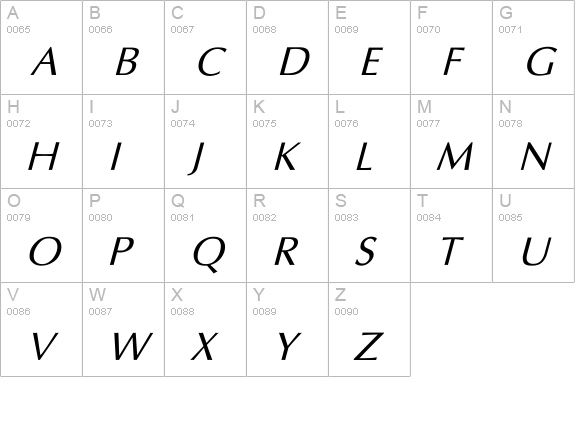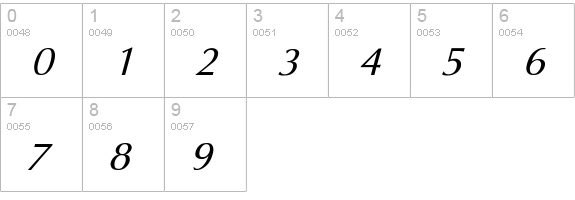
Eppley Italic Font Details
Eppley Italic is a distinctive, italic variant in the Eppley typeface family \xE2\x80\x94 well suited to design and typography projects.
Eppley Italic is a stunning and elegant font that exudes sophistication and charm. Its sleek lines and gentle curves make it perfect for adding a touch of class to any design project. Whether you're working on a wedding invitation, a branding project, or a fashion editorial, Eppley Italic is sure to elevate your work to the next level. The best part? Eppley Italic is available for free download at FontsMarket.com. This means that you can easily access this beautiful font without having to worry about breaking the bank. So go ahead and give your projects a touch of elegance with Eppley Italic – your new go-to font for all things stylish and refined.